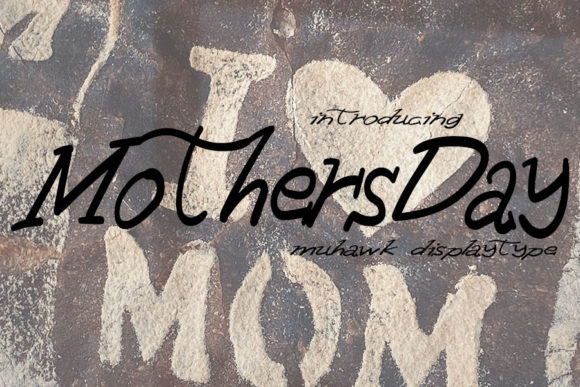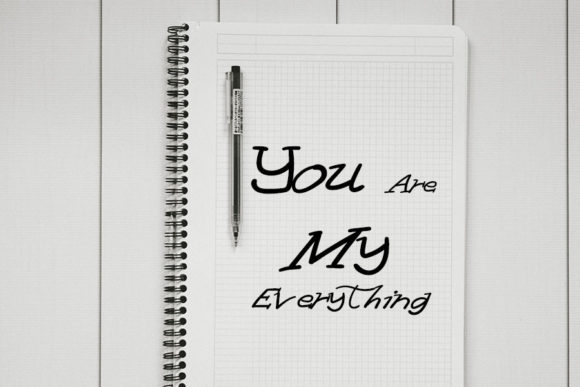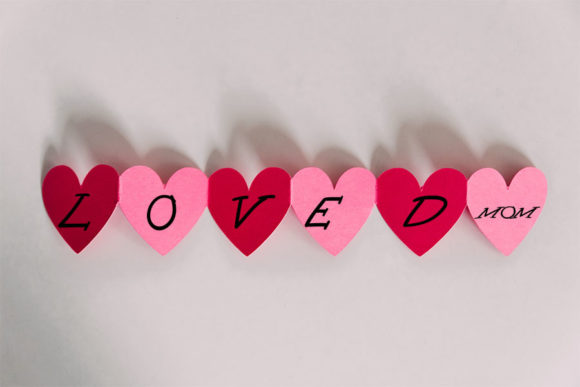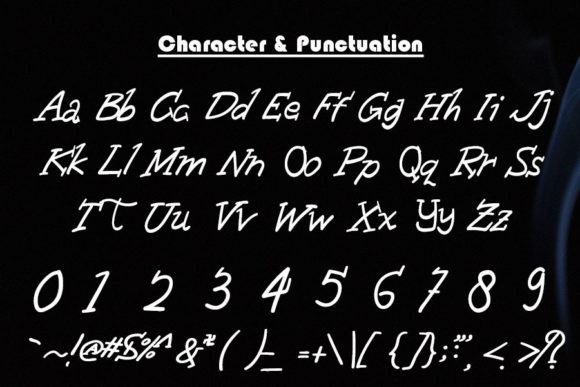
Mothers Day Font
About Mothers Day Font
Mothers Day is an incredibly unique script font. Simple and easy to use, this font will be very beautiful if you mix it with your various craft designs.